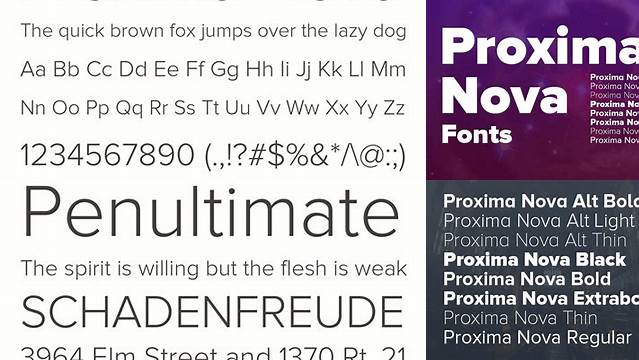
Hey guys! Are you looking to elevate your design game with a versatile and modern font? Well, look no further! In this article, we're diving deep into the world of Proxima Nova, a font family that has become a staple for designers worldwide. We'll explore its features, discuss its uses, and guide you on how to find free TTF downloads. So, buckle up and let's get started!
What is Proxima Nova?
Proxima Nova is more than just a font; it's a geometric sans-serif typeface designed by Mark Simonson in 2005. It's a rework of his earlier font, Proxima Sans, and has quickly become one of the most popular and widely used typefaces around. Its clean lines, balanced proportions, and extensive character set make it incredibly versatile for a wide range of applications. The Proxima Nova font has gained immense popularity due to its modern aesthetic and exceptional readability. Designers across various fields, from web design to print media, rely on Proxima Nova to convey messages with clarity and style. Its geometric sans-serif design lends a contemporary feel to any project, making it a go-to choice for brands seeking a sleek and professional image. Proxima Nova's widespread adoption is a testament to its timeless appeal and adaptability, solidifying its position as a cornerstone of modern typography. Its neutrality allows it to seamlessly integrate into diverse design contexts, enhancing the overall visual experience without overpowering the content. Moreover, Proxima Nova's comprehensive character set supports multiple languages, further expanding its global usability and appeal. Whether used for headlines, body text, or branding elements, Proxima Nova consistently delivers a polished and refined look. Its clean lines and balanced proportions ensure legibility across various screen sizes and print formats, making it a reliable choice for designers aiming for both aesthetic appeal and functional clarity. The font's versatility extends to its numerous weights and styles, providing designers with a wide range of options to tailor the typeface to their specific needs. This adaptability, combined with its modern aesthetic, has cemented Proxima Nova's status as a perennial favorite in the design community.
Why is Proxima Nova so Popular?
There are several reasons why Proxima Nova has become a design world darling:
- Versatility: It works well for headlines, body text, and everything in between.
- Readability: Its clean design ensures excellent readability, even at small sizes.
- Modern Aesthetic: It has a contemporary look that suits a wide range of design styles.
- Extensive Character Set: It supports a wide range of languages and includes various symbols and glyphs. The popularity of Proxima Nova can be attributed to its exceptional versatility, making it suitable for a wide array of design applications. Its clean and modern aesthetic resonates with contemporary design trends, ensuring that it remains a relevant and sought-after typeface. Proxima Nova's versatility stems from its carefully crafted geometric structure, which provides a balanced and harmonious appearance. This makes it equally effective for headlines, body text, and branding elements, offering designers a comprehensive solution for their typographic needs. Its neutral design allows it to seamlessly integrate into diverse design contexts, enhancing the overall visual appeal without overpowering the content. Moreover, Proxima Nova's readability is a key factor in its widespread adoption. Its clear and well-defined letterforms ensure optimal legibility across various screen sizes and print formats, making it an ideal choice for both digital and print media. Whether used in large headlines or small body text, Proxima Nova maintains its clarity, ensuring that the message is effectively conveyed to the audience. Additionally, Proxima Nova's extensive character set supports multiple languages, further expanding its global usability and appeal. This comprehensive support makes it a valuable asset for international projects, allowing designers to create cohesive and consistent designs across different linguistic contexts. The inclusion of various symbols and glyphs further enhances its versatility, providing designers with a rich set of tools to express their creativity. In summary, Proxima Nova's popularity is a result of its versatility, readability, modern aesthetic, and extensive character set, making it a top choice for designers worldwide.
- Font Alternatives: There are many free fonts that are similar to Proxima Nova. These can be a great alternative if you're on a budget. We'll discuss some of these later.